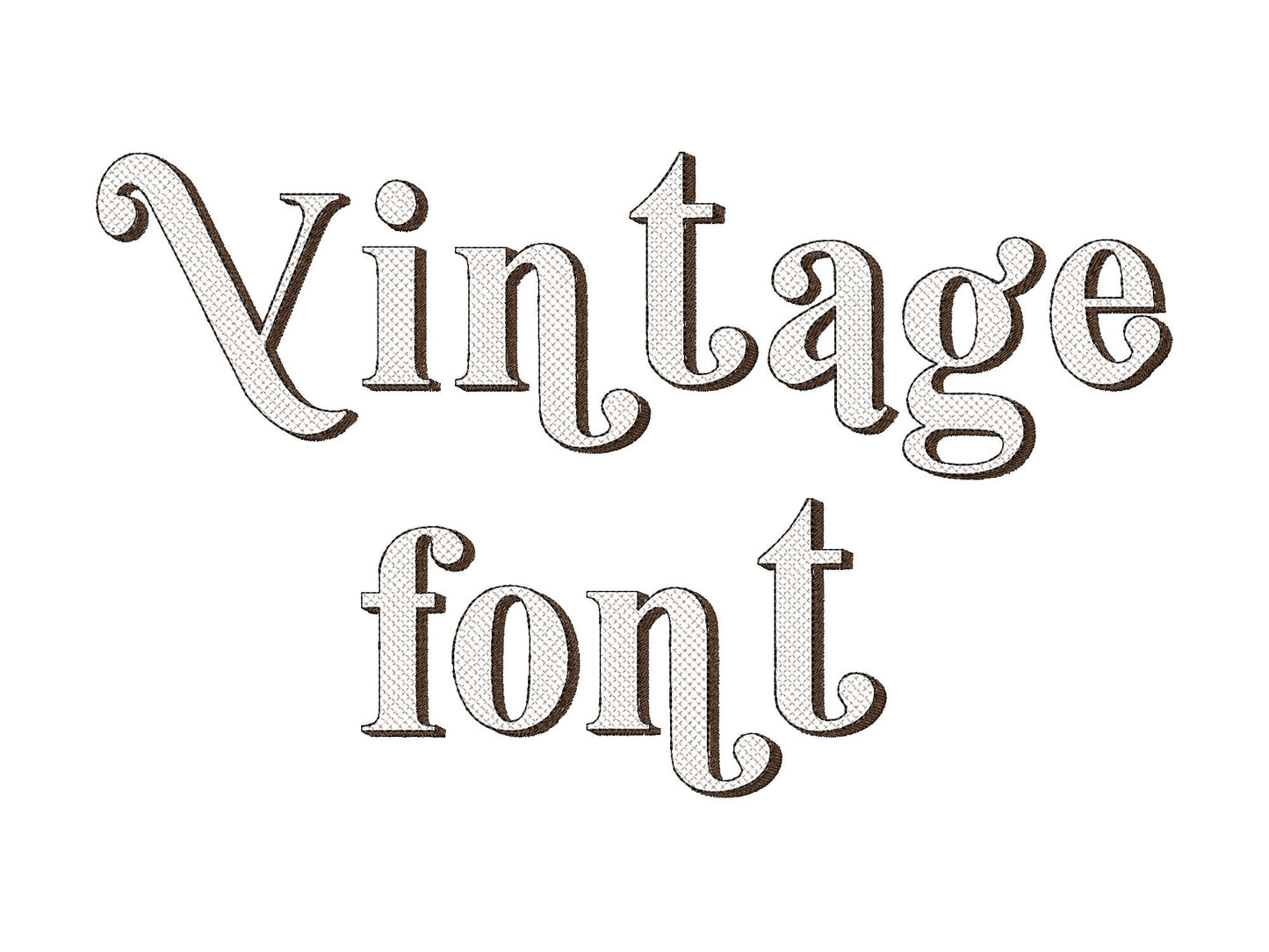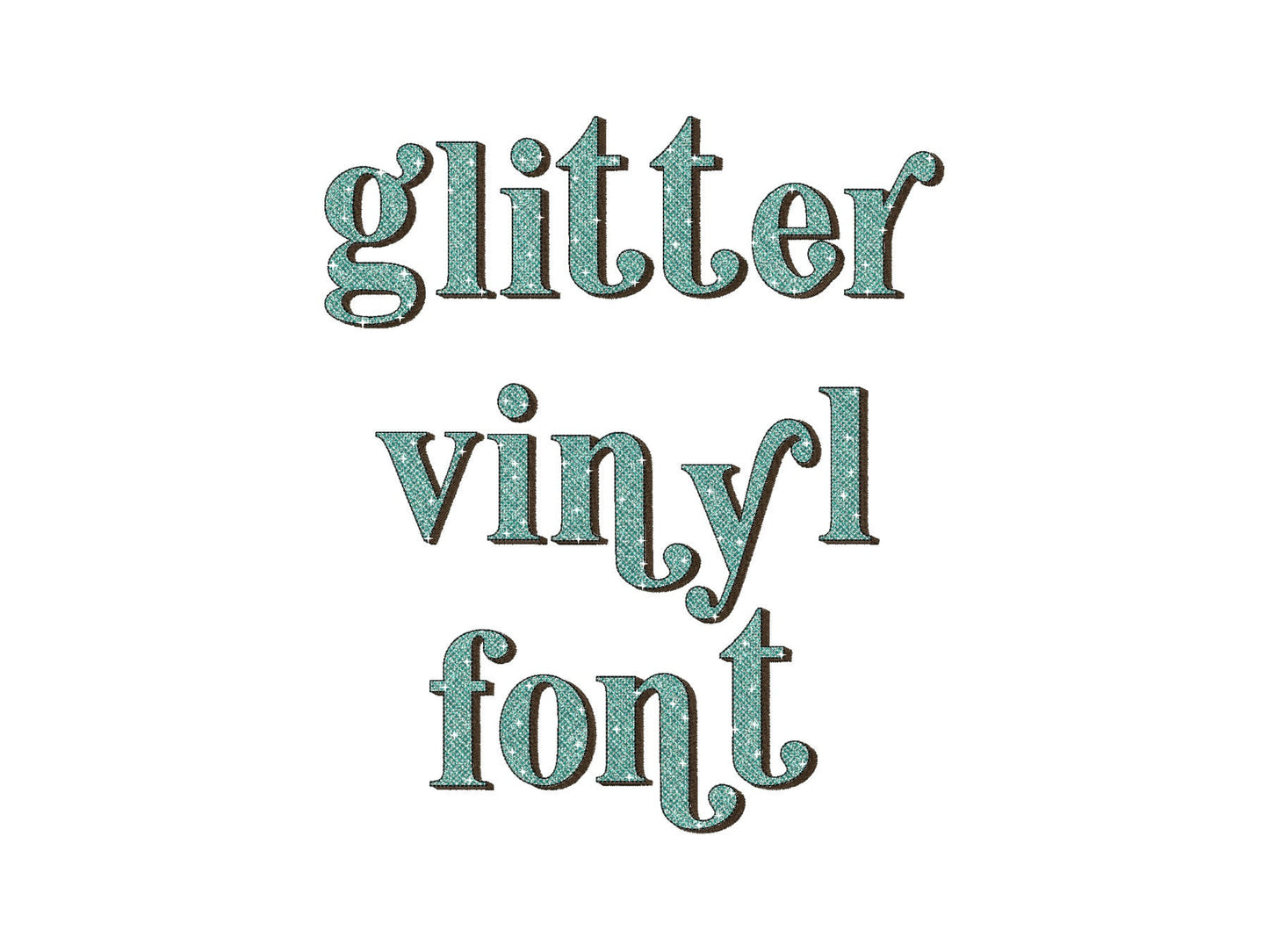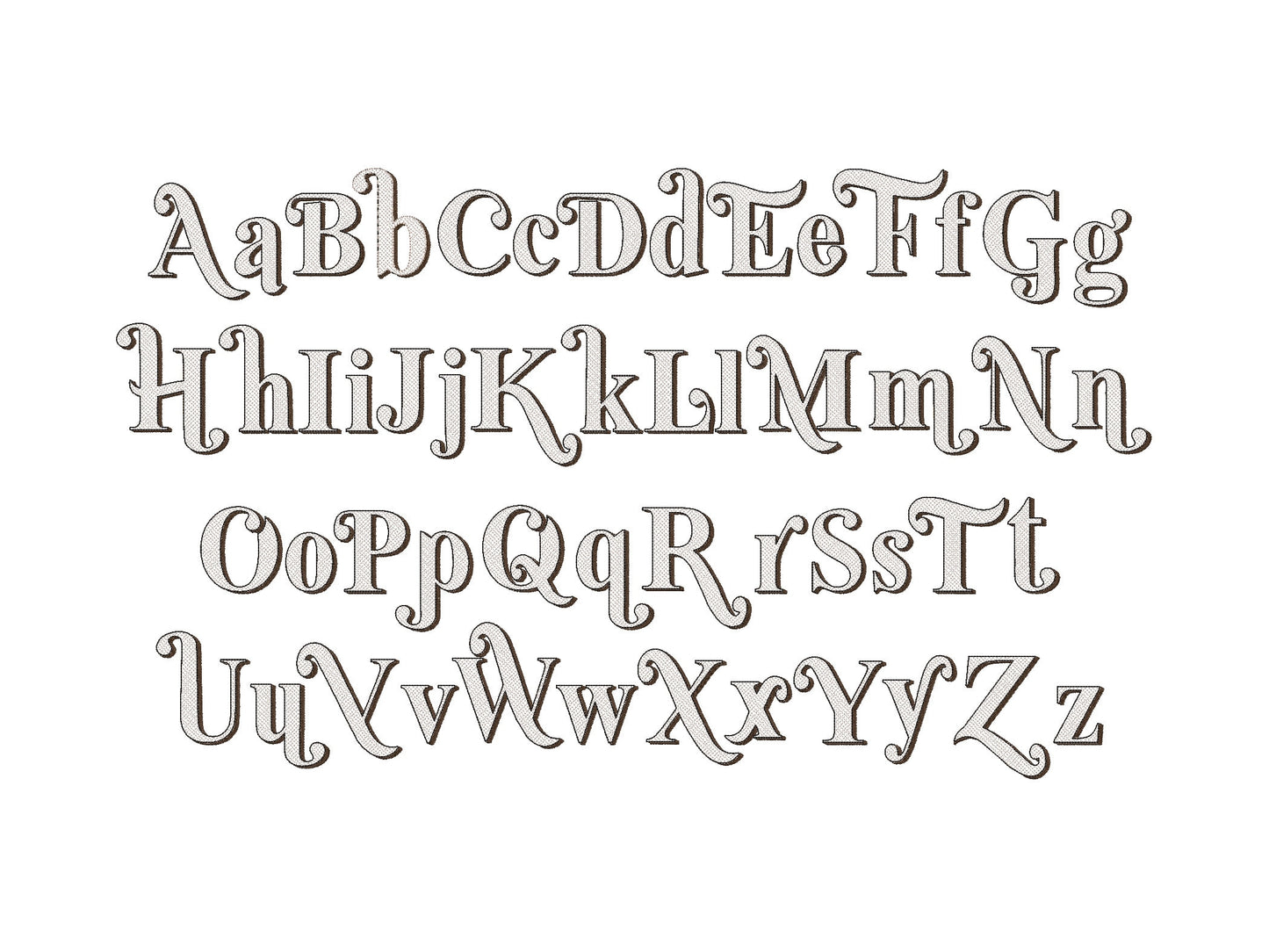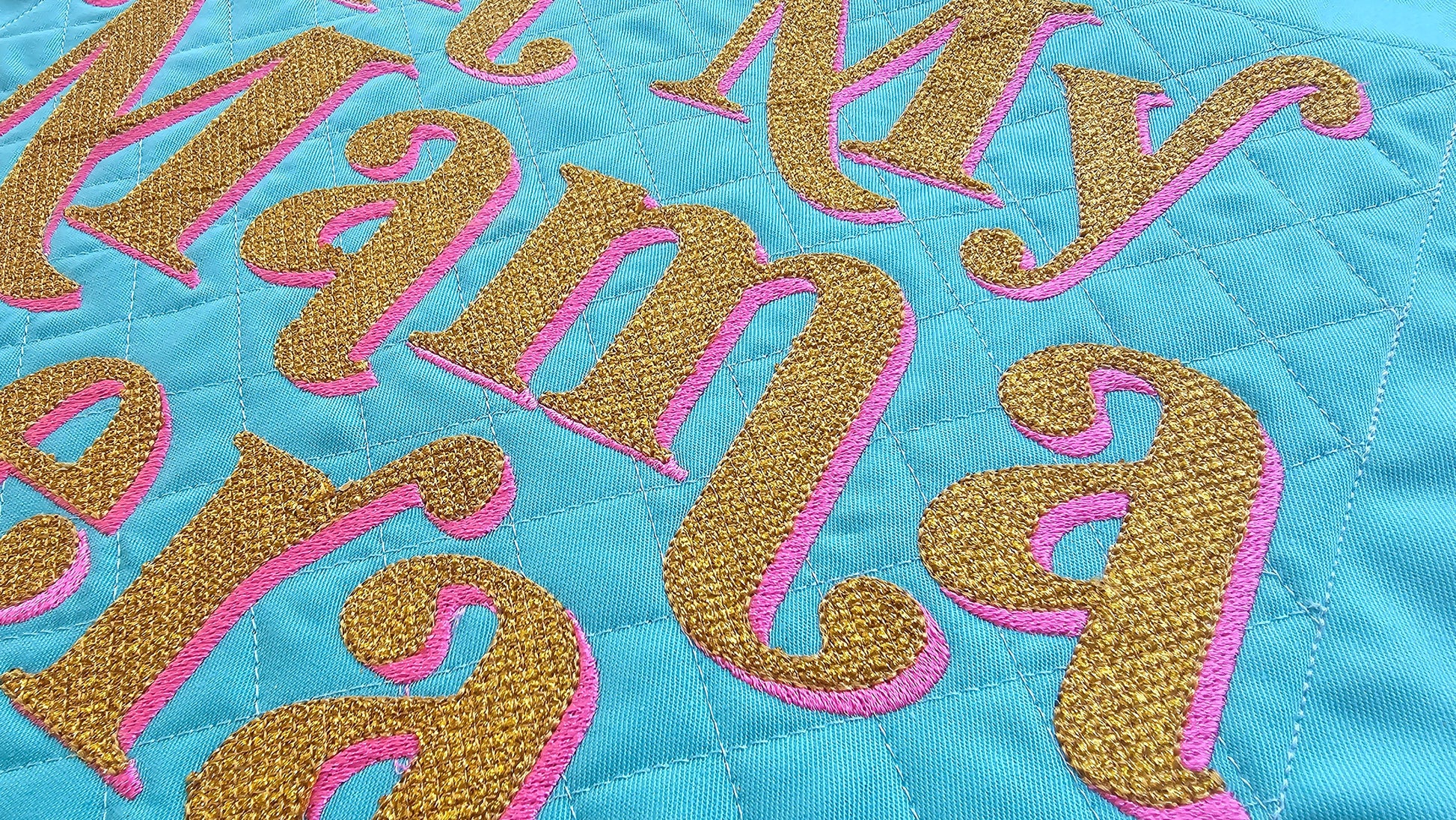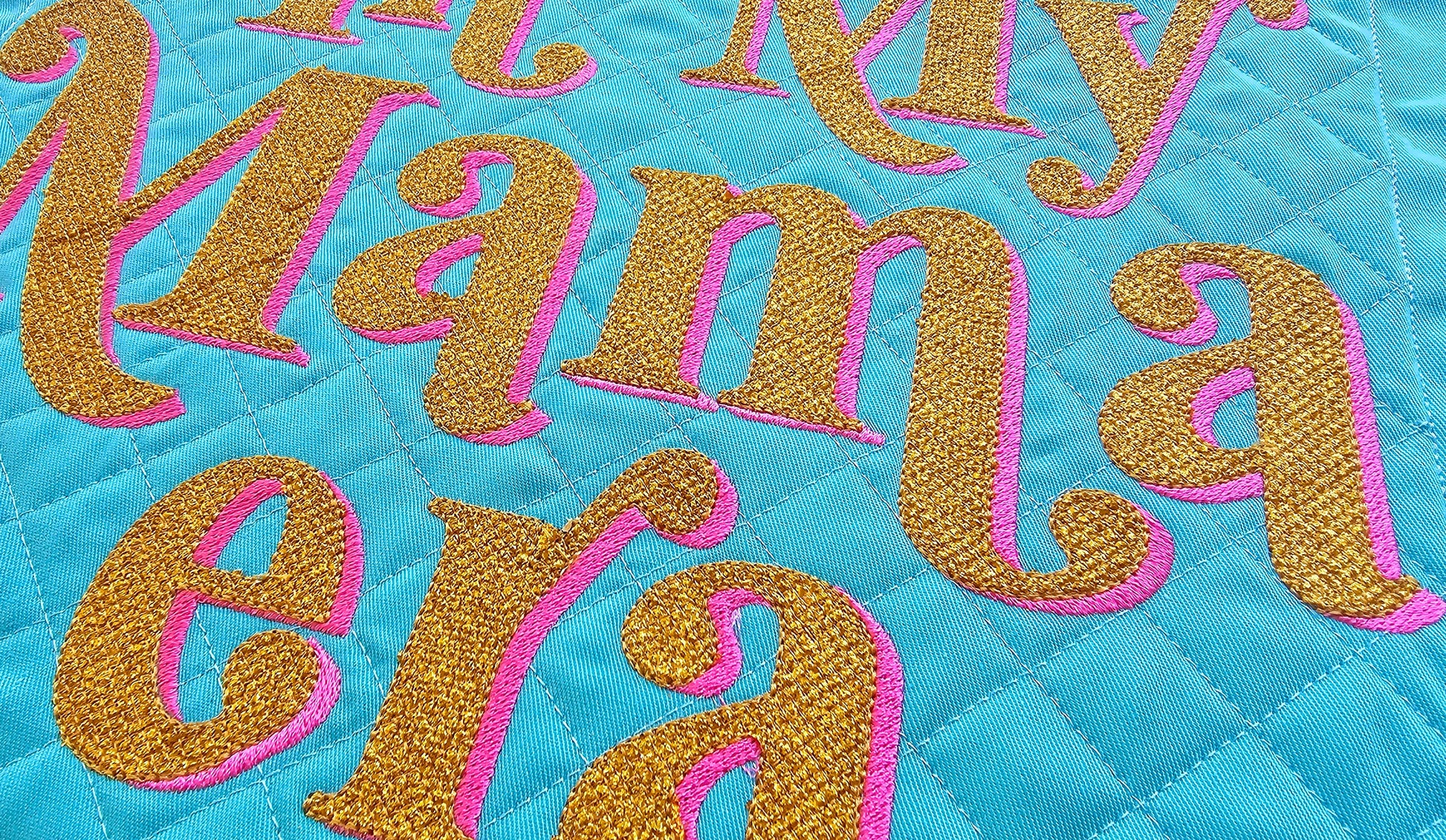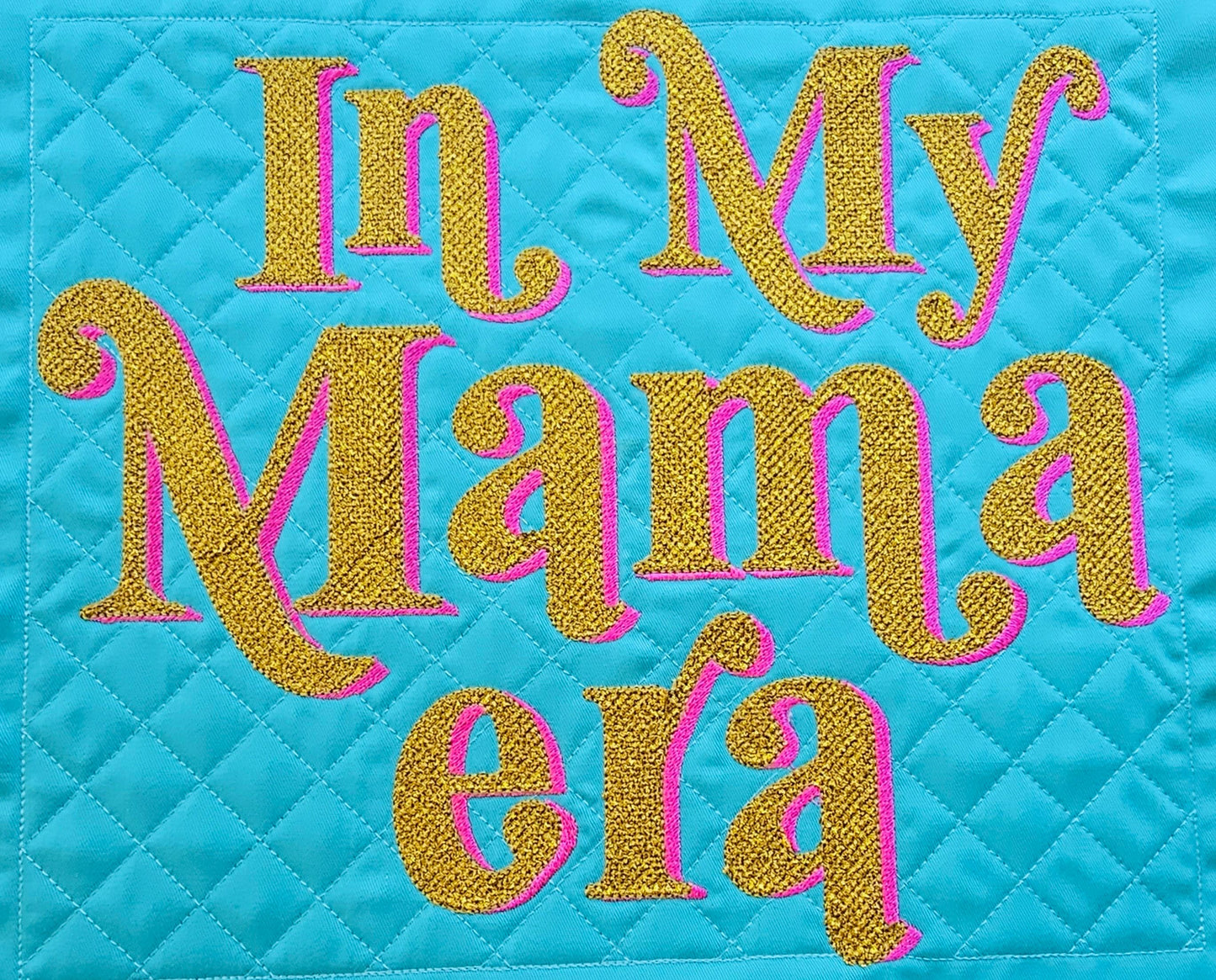
Vintage Glitter Font HTV
Uppercase and lowercase letters in five sizes: 1.8, 2.3, 3, 3.7 and 4.4 inches. Press the glitter vinyl on with a heat press or iron.
- Vintage glitter vinyl font
- Uppercase and lowercase letters
- 5 sizes, 1.8 to 4.4 in